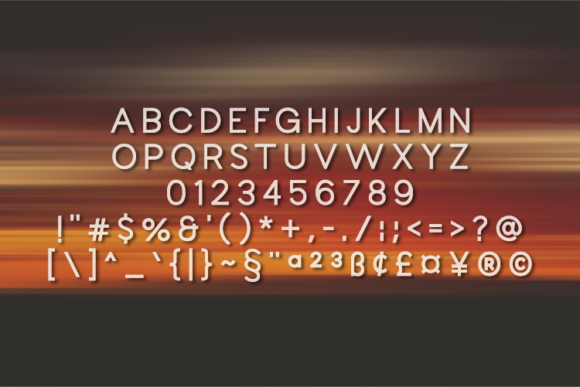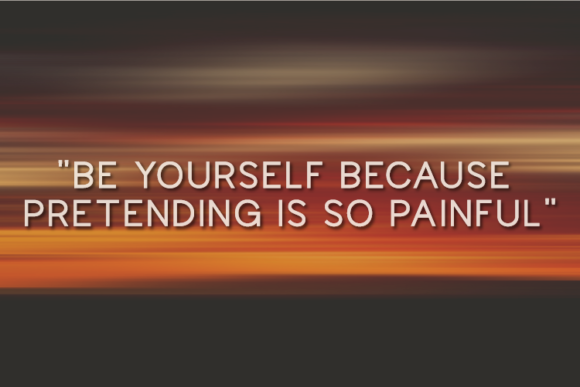
Introducing Enchante Font: The Ultimate Sans Serif for Modern Designs
Are you tired of using the same old fonts in your designs? Look no further! Enchante Font is here to revolutionize the way you approach typography. This simple and authentic sans serif font is perfect for designers and crafters looking to add a touch of elegance and sophistication to their work.
The Characteristics of Enchante Font
Enchante Font boasts a clean, thin, and smooth vibe that makes it perfect for a wide range of design applications. Its sans serif design ensures that your text remains clear and legible, even at smaller font sizes. The font’s simplicity is its greatest strength, allowing it to blend seamlessly into any design without overpowering it.
Why Enchante Font is a Hit for Designers and Crafters
Enchante Font is a versatile font that can be used in a variety of design contexts, from branding and advertising to packaging and digital media. Its clean and modern aesthetic makes it perfect for designers looking to create sleek and sophisticated designs. Crafters will also love Enchante Font for its ability to add a touch of elegance to their handmade projects, such as greeting cards, scrapbooking, and DIY crafts.
The Benefits of Using Enchante Font
- Improved Readability: Enchante Font’s clear and legible design ensures that your text is easy to read, even for those with visual impairments.
- Enhanced Aesthetics: The font’s clean and modern aesthetic adds a touch of sophistication to any design, making it perfect for high-end branding and advertising campaigns.
- Versatility: Enchante Font can be used in a wide range of design applications, from digital media to print materials.
Tips and Tricks for Getting the Most Out of Enchante Font
- Pair it with Other Fonts: Enchante Font pairs well with other sans serif fonts, such as Arial or Helvetica. Experiment with different font combinations to create a unique look.
- Experiment with Font Sizes: Enchante Font looks great at a variety of font sizes, from small and delicate to large and bold.
- Use it for Headings and Body Text: Enchante Font is perfect for both headings and body text, making it a versatile addition to any design.
Enchante Font is a simple and authentic sans serif font that is perfect for designers and crafters looking to add a touch of elegance and sophistication to their work. Its clean, thin, and smooth vibe makes it perfect for a wide range of design applications, from branding and advertising to packaging and digital media. With its improved readability, enhanced aesthetics, and ease of use, Enchante Font is a must-have for any designer or crafter looking to take their designs to the next level.